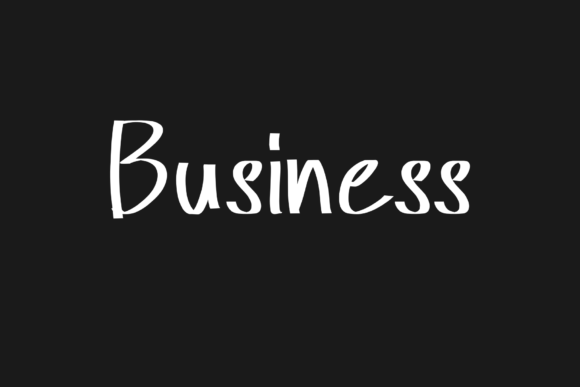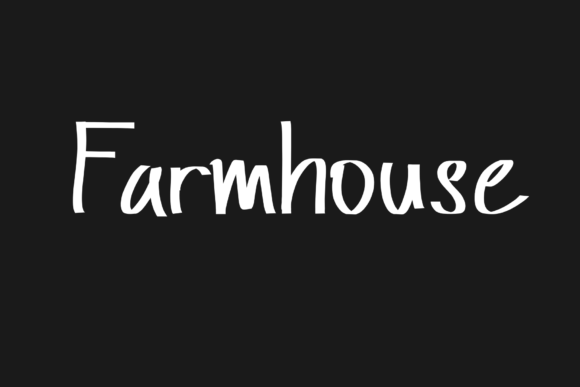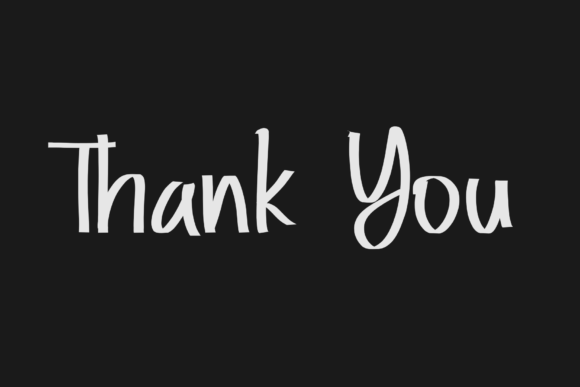
Introduction to Hanmade Font
Have you ever been scribbling away in your journal, trying to capture the perfect quote or lyrics from your favorite song, when suddenly your pen or pencil glides across the page in a beautiful, flowing script? That’s the magic of the handwritten font – a high-quality design resource that brings a touch of personality to any project.
As a designer, you know the importance of finding the right font to elevate your creative project. And when it comes to a romantic and charming handwritten font like Hanmade Font, you’ll be hard-pressed to find a better option. With its transparent background and versatility, Hanmade Font is perfect for wedding-related projects, birthday cards, stationery, and more.
Key Features of Hanmade Font
- High-quality, handcrafted design: Hanmade Font is a unique and creative resource for any project, offering a distinctive touch to your work.
- Transparent background: Hanmade Font features a transparent background, allowing for seamless integration with any design or creative project.
- Multi-language support: Hanmade Font supports a wide range of languages, making it an excellent choice for designers working on international projects.
- Resolution-independent: This font is designed to be resolution-independent, ensuring that it looks great at any size or resolution.
- Perfect for creative projects: Hanmade Font is ideal for use in graphic design, branding, web design, and other creative projects where a unique and eye-catching font is desired.
Honest Review: Hanmade Font
I recently stumbled upon the Hanmade Font, and I must say it’s a great addition to any designer’s toolkit. This high-quality font is a fantastic resource for any creative project that requires a unique touch.
What works well with the Hanmade Font is its versatility. You can use it for a variety of design projects, from logos to graphics, and it always looks great. The font is also available for free download, making it a valuable asset for designers on a budget.
Here are some of the key features that make the Hanmade Font stand out:
- ✨ Unique and stylish design that sets it apart from other fonts
- ✨ High-quality design that looks great on both light and dark backgrounds
- ✨ Transparent background option for easy customization
- ⚠️ Limited character set, which may not be ideal for longer texts
- ⚠️ Not all versions of the font are available in bold or italic
Overall, I’m impressed with the Hanmade Font. It’s a great resource for designers looking for a unique and high-quality font for their creative projects. With its versatility and free download option, it’s definitely worth checking out.
Introduction to Hanmade Font
Hanmade Font is a high-quality, free design resource ideal for creative projects that require a unique touch. With its transparent background, this font is versatile and can be used across various platforms.
Tips for Getting the Most Out of Hanmade Font
To get the most out of Hanmade Font, experiment with different font sizes, colors, and styles to create unique and eye-catching designs. You can also use the font in combination with other design elements to create a cohesive look.
Common Use Cases for Hanmade Font
Hanmade Font is ideal for use in creative projects such as logos, brochures, business cards, and social media graphics. Its transparent background and high-quality design make it a versatile resource for designers and non-designers alike.